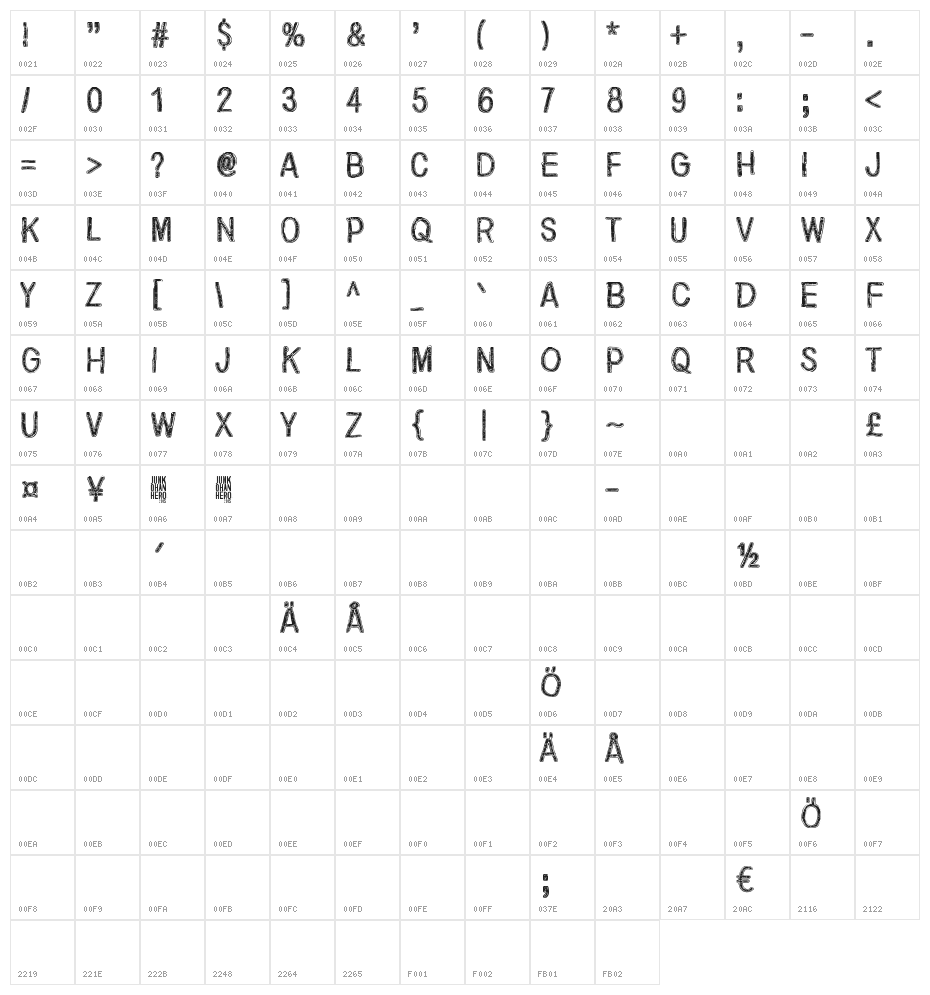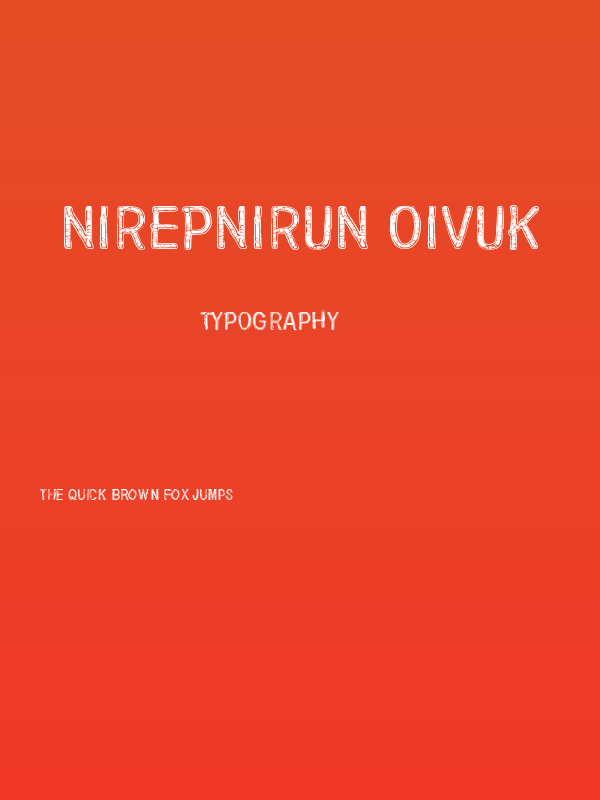
Nirepnirun oivuk Font
Nirepnirun oivuk Description
This font features a bold and playful style with a hand-drawn appearance. The letters are outlined with a thick, uneven stroke, giving them a textured and slightly distressed look. The characters are uppercase and lowercase, with numerals and a variety of special symbols. The font has a whimsical and informal feel, making it suitable for creative and fun projects. Its unique design stands out, making it ideal for attention-grabbing headlines or artistic displays. The spacing between characters is relatively tight, contributing to its compact and cohesive appearance.
| Overall Style | Playful, Artistic |
| Proposed Projects | Ideal for children's book covers, playful posters, creative branding, and artistic invitations. |